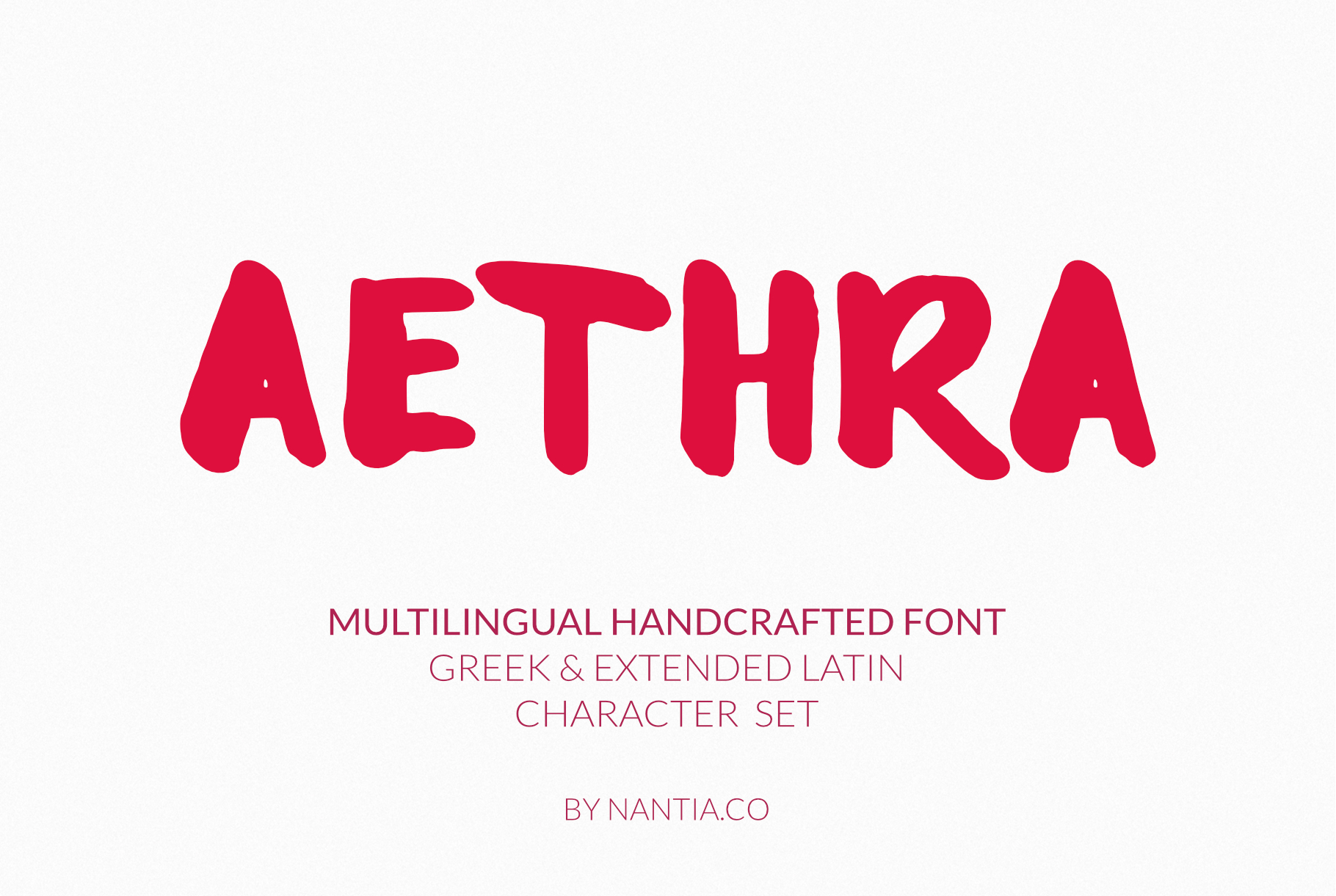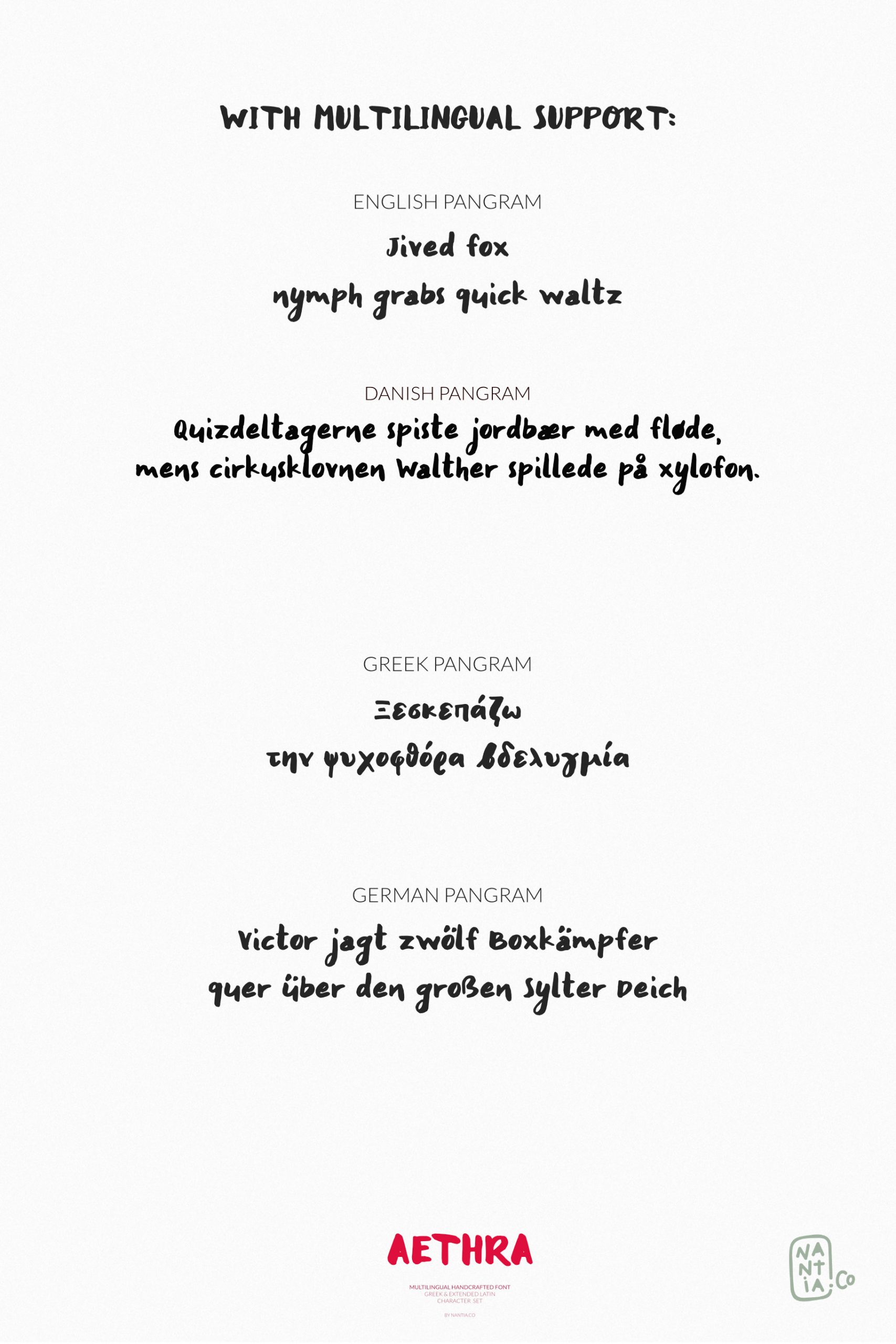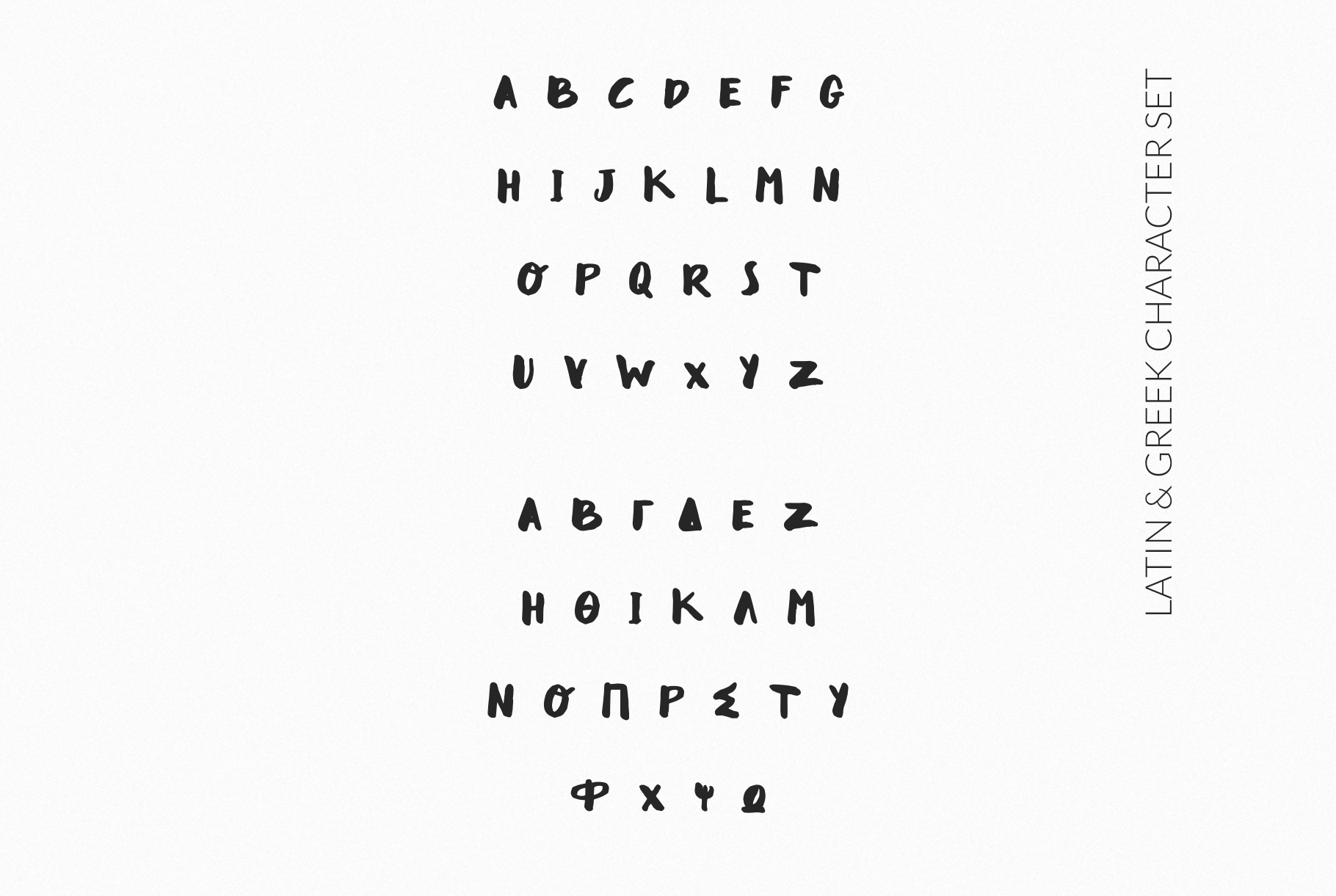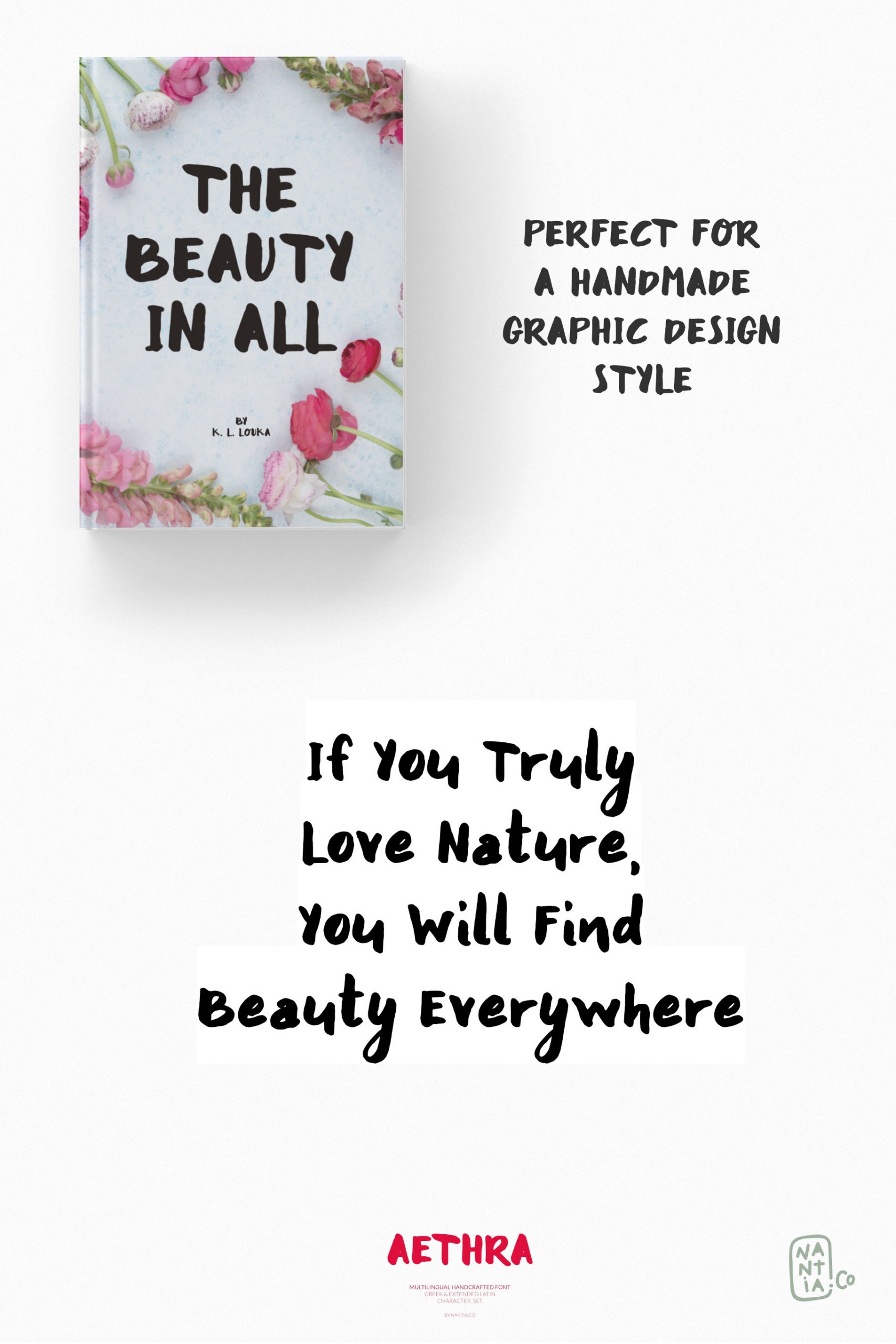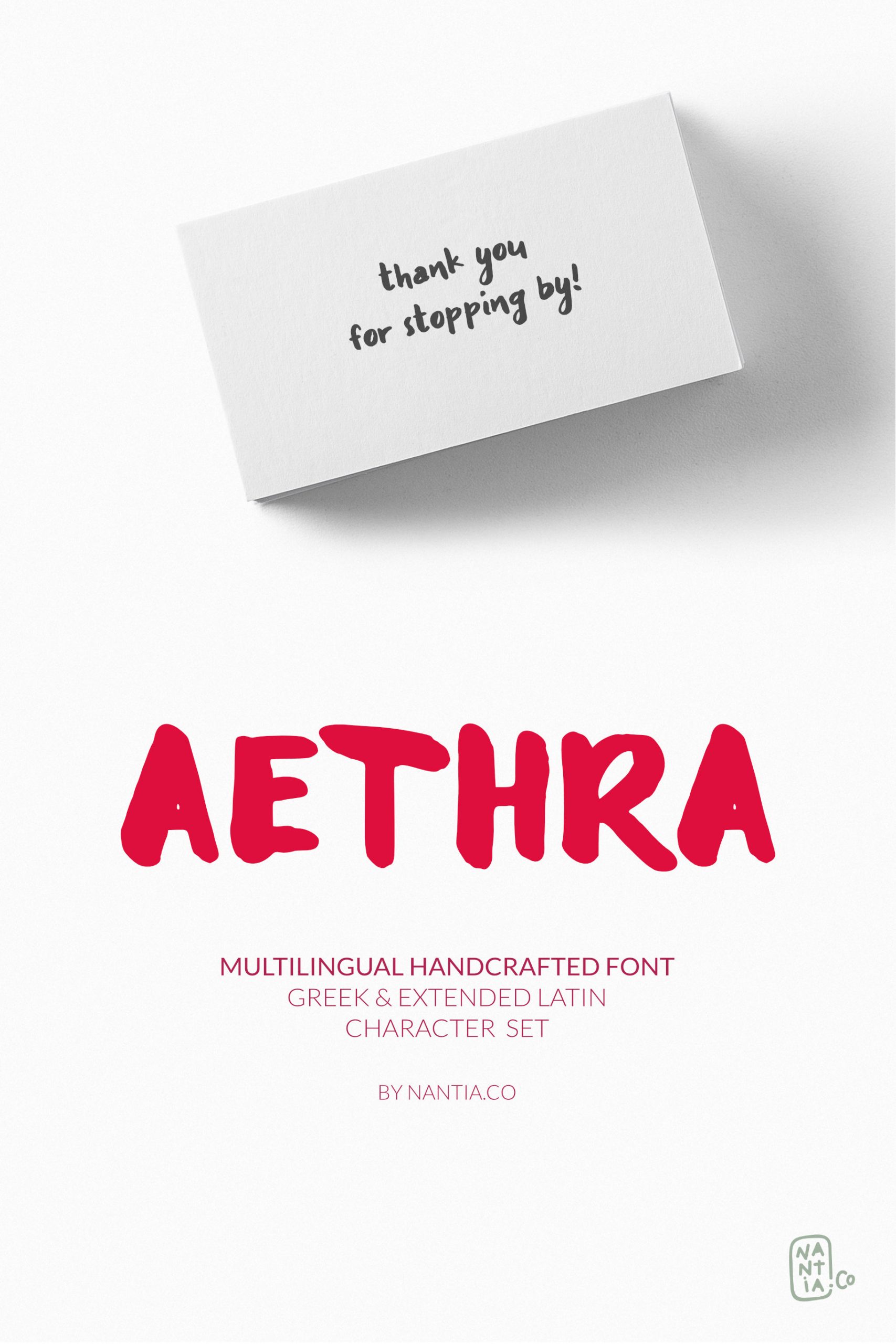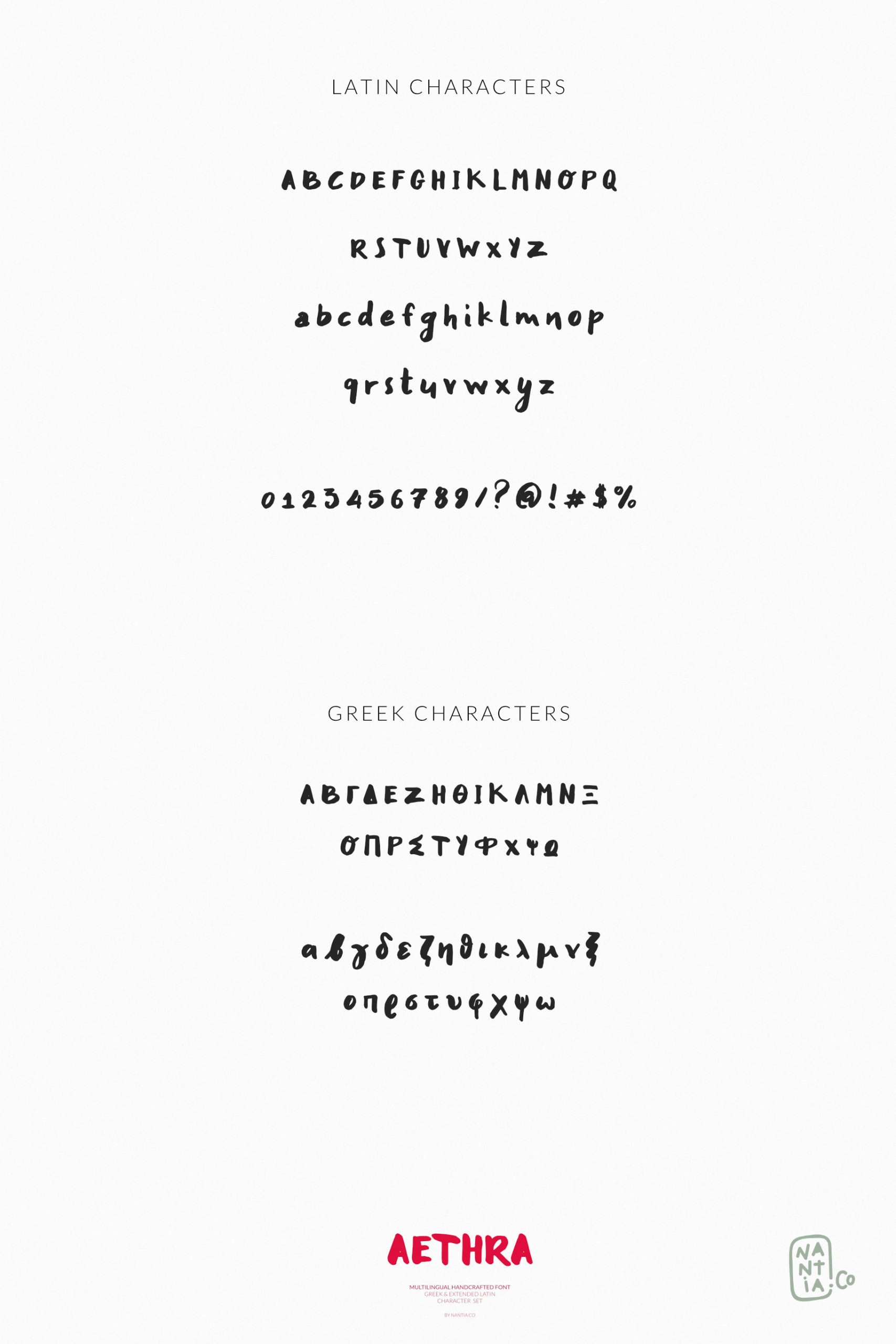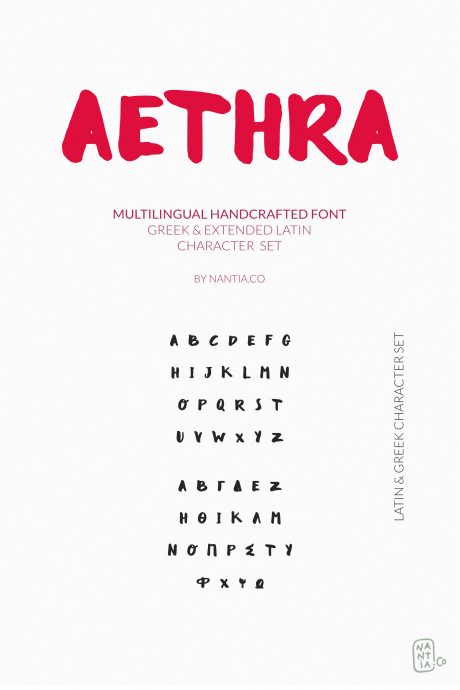
Aethra Brush Latin & Greek Font
Ξεσκεπάζω την ψυχοφθόρα βδελυγμία.
Aethra Brush Latin & Greek Font is a handwritten display font. 100% handcrafted with a marker, digitized, and turned into a font. Of course, the font supports a full set of Greek characters and an extended Latin character set with diacritics. Τhis typeface can be your next typeface for your graphic design needs. From digital planners and “hand-written” quotes to product packaging, merchandise, and branding projects, this font is so easy to use that it can cover them all. Also, it can be used on social media content, for branding, poster design, “hand-written” quotes, and any other kind of product packaging.
Finally, Aethra Font with a huge multilingual character set and diacritics can support over 20 languages: Albanian, Basque, Bosnian, Breton, Catalan, Chamorro, Croatian, Czech, Danish, Dutch, English, Estonian, Faroese, Finnish, French, Frisian, Galician, German, Greek, Hungarian, Icelandic, Italian, Latvian, Lithuanian, Malagasy, Maltese, Norwegian, Polish, Portuguese, Romanian, Serbian, Slovak, Slovenian, Spanish, Swedish, Turkish, Welsh.